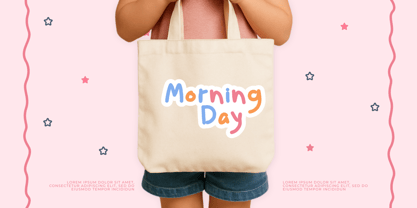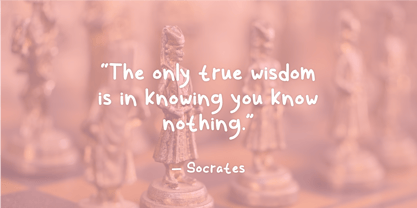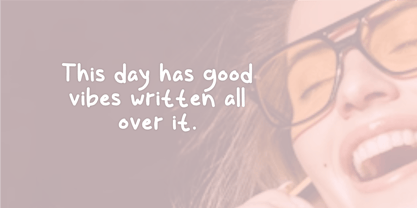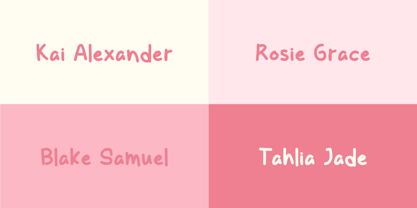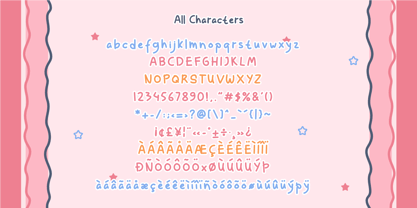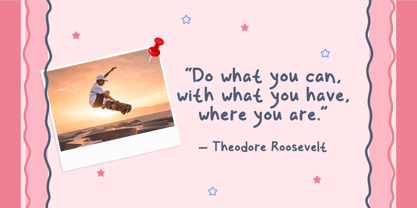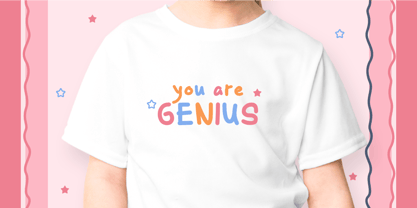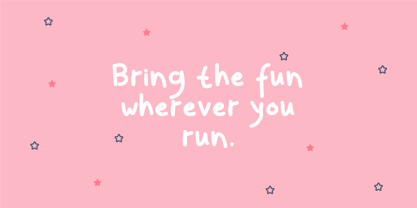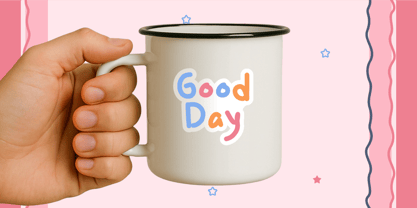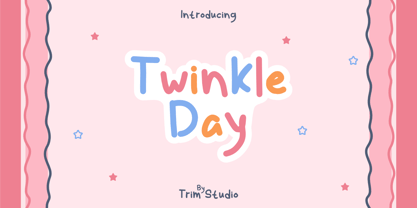
Twinkle Day
by Trim Studio
The Twinkle Day Font Family was designed by Deri Kurnia and published by Trim Studio. Twinkle Day contains 2 styles and family package options. More about this family
Twinkle Day is a fun and quirky handwritten font with the charm and playfulness of comic-style lettering, perfect for dialogue bubbles, lighthearted titles, and cheerful creative projects.
Designers: Deri Kurnia
Foundry: Trim Studio